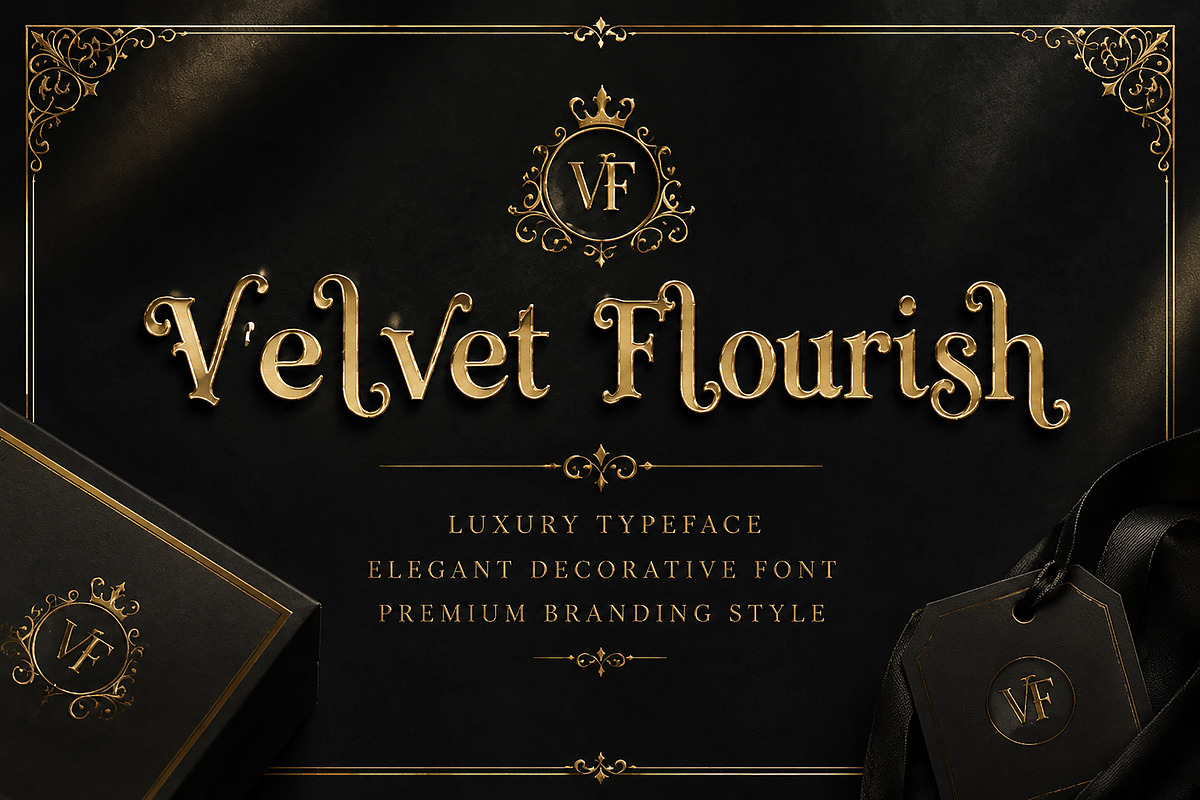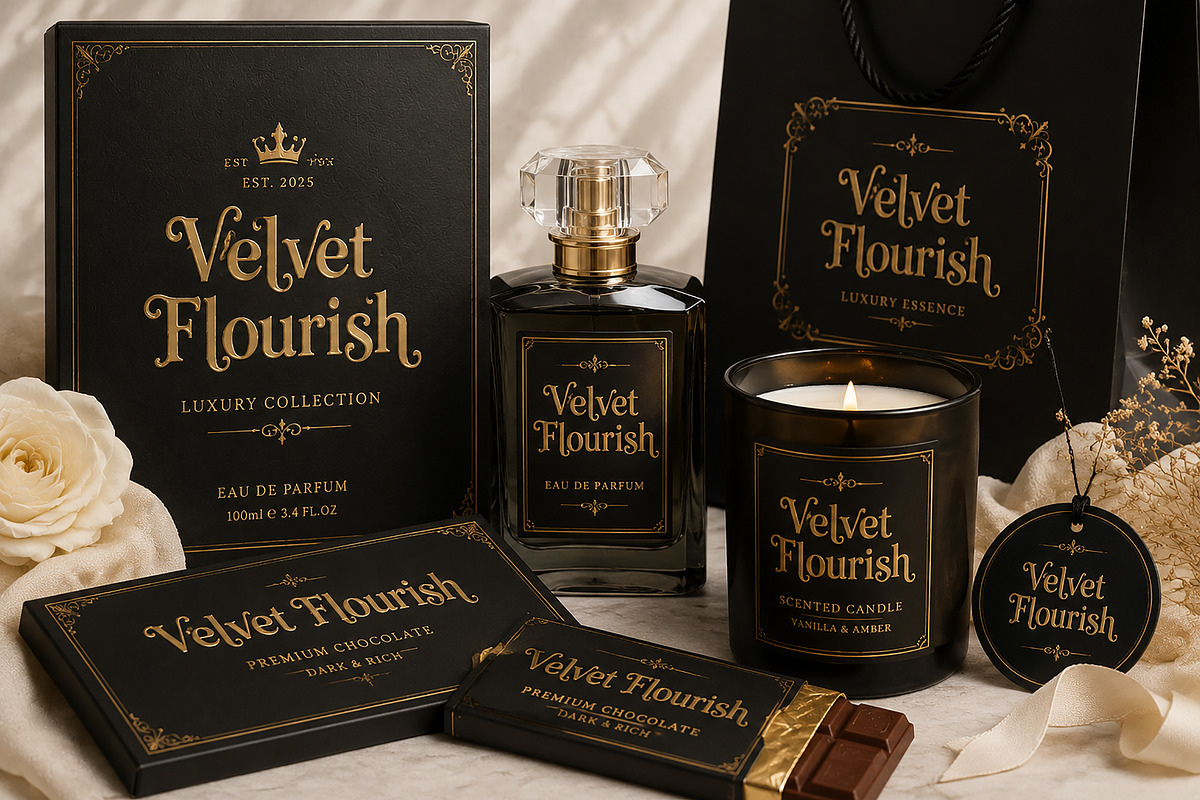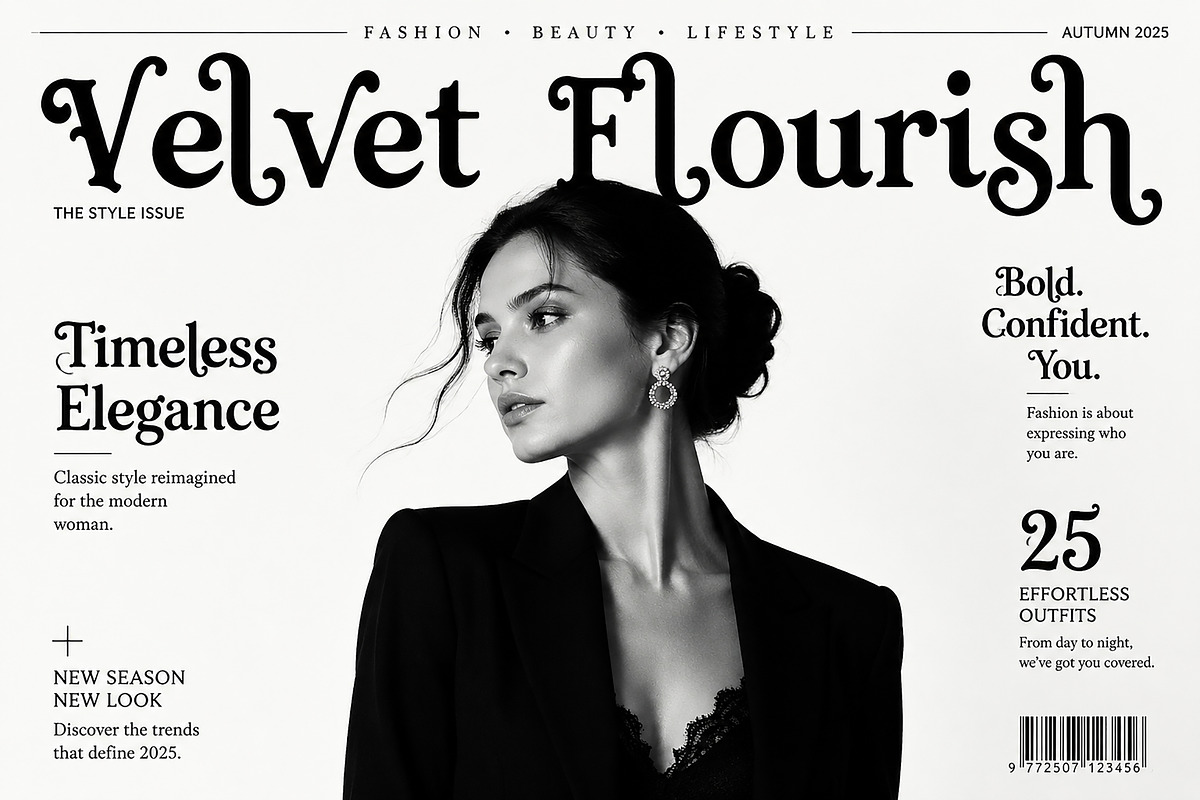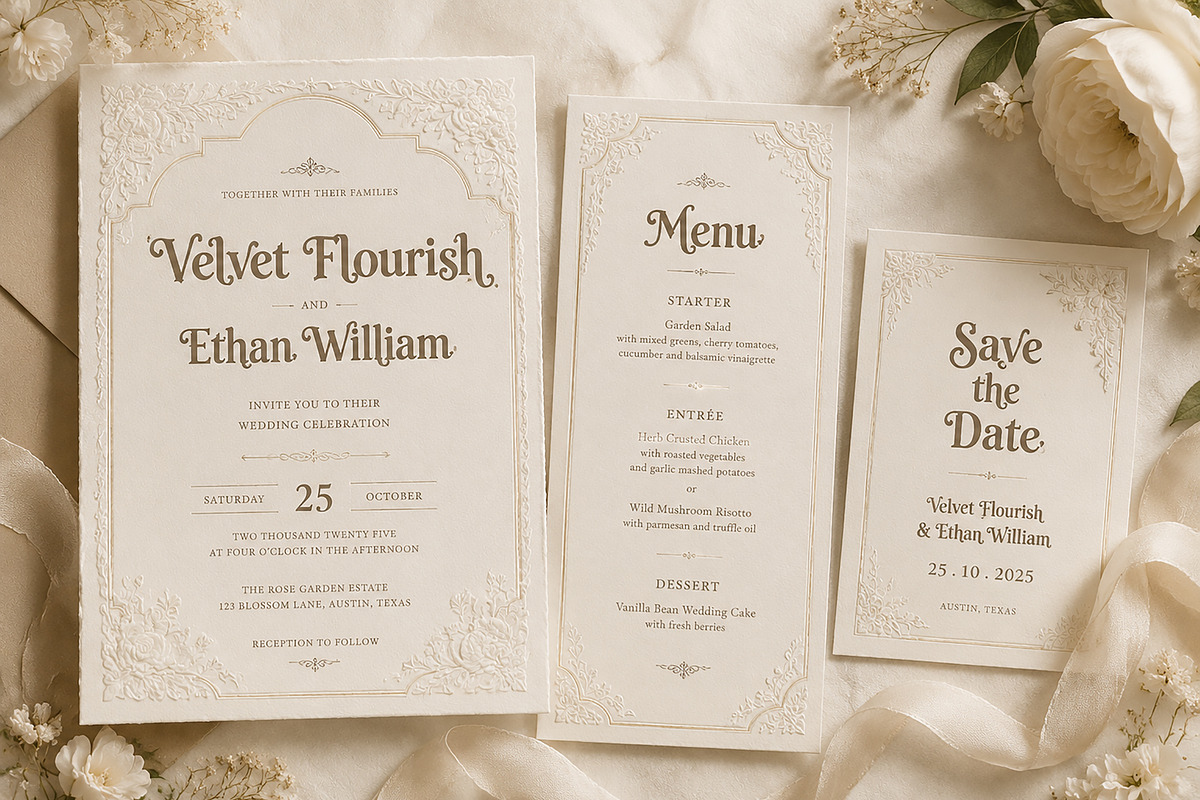
Velvet Flourish
Velvet Flourish – Elegant Decorative Serif Font
Velvet Flourish is a luxurious decorative serif typeface designed to bring timeless elegance, sophistication, and premium style to your creative projects. With its graceful curves, classic letterforms, and refined flourishes, this font is perfect for creating high-end branding, wedding invitations, fashion designs, packaging, logos, and editorial artwork.
Inspired by vintage luxury aesthetics and modern elegance, Velvet Flourish adds a stylish and memorable touch to every design. Its sophisticated appearance makes it an excellent choice for designers who want to create premium visual identities with a unique personality.
Luxury Logo Design
Fashion Branding
Wedding Invitations
Boutique Identity
Cosmetic Packaging
Product Labels
Editorial Design
Stationery Design
Premium Brand Projects
✓ Elegant Decorative Serif Style
✓ Luxury & Vintage Inspired Design
✓ Perfect for Branding & Identity Projects
✓ Beautiful Display Typography
✓ Suitable for Print and Digital Designs
✓ Professional High-End Look
Create sophisticated designs with Velvet Flourish and give your projects a luxurious, timeless appearance.